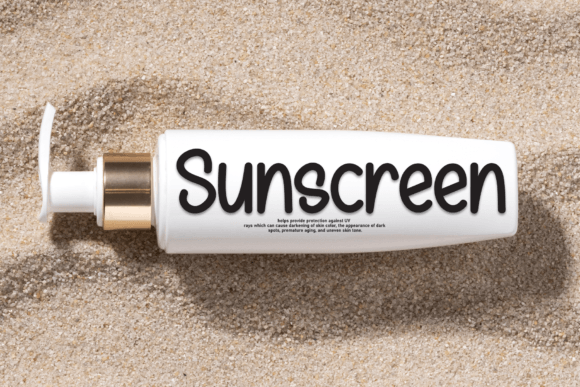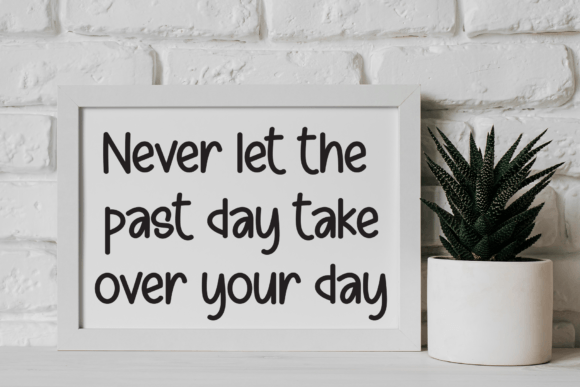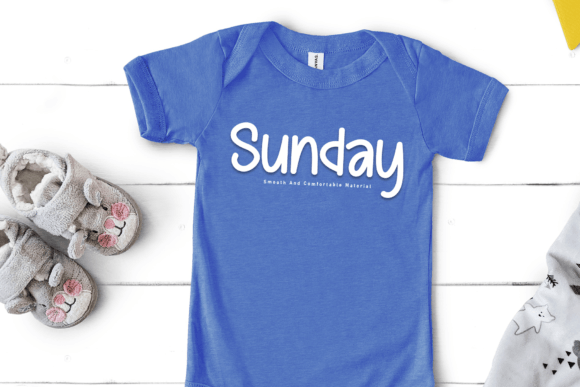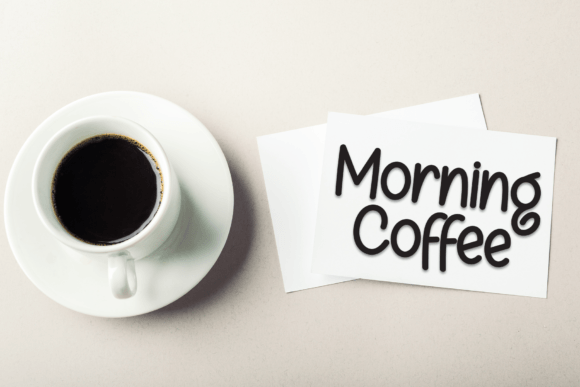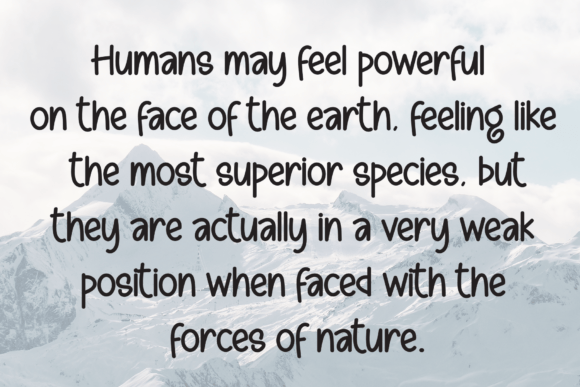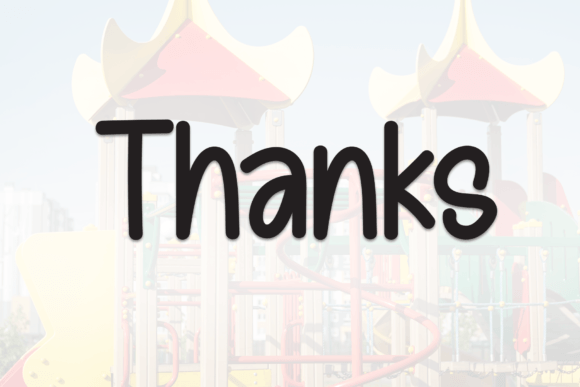
Introduction to Childern Playground Font
Remember that moment when you stumbled upon the perfect font for a creative project, and everything just clicked? It’s a feeling that’s hard to describe, but it’s a mix of excitement, relief, and a dash of pride. As a designer, you know how crucial the right font can be in elevating your work and making it truly special. That’s where the Childern Playground Font comes in – a stunning, high-quality font that’s perfect for adding a touch of whimsy and fun to your designs.
With its unique, playful style, the Childern Playground Font is an absolute gem for designers. Whether you’re working on a children’s book, a wedding invitation, or a social media campaign, this font is sure to bring a smile to your face and a touch of magic to your design. And the best part? It’s available for free download, making it an invaluable resource for any designer looking to add some creativity to their projects.
Key Features of Childern Playground Font
- Unique, hand-drawn design suitable for creative projects and children’s themes
- Designed to be highly customizable, with scalable vector graphics (SVG) for crisp, high-resolution output
- Perfect for designers and artists looking for a distinctive, whimsical font to elevate their creative project
Honest Review: Childern Playground Font
I recently stumbled upon the Childern Playground Font and I must say it’s been a great addition to my design resources. I love how it can instantly add a playful touch to any creative project.
What works well: ✨ The font is incredibly versatile and can be used for a wide range of applications, from children’s books to advertisements and even personal branding. It’s also free to download, which is a major plus for designers like me who are always on the lookout for high-quality design resources.
The transparent background feature is also a nice touch, allowing me to easily overlay the font on different backgrounds and create visually appealing designs.
However, there are a few limitations: ⚠️ The font could benefit from more character sets, especially for languages other than English. Additionally, the font might not be suitable for projects that require a more formal tone.
Overall, I’m impressed with the Childern Playground Font and would highly recommend it to designers looking for a fun and creative font to add to their toolkit.
- High quality design resource
- Transparent background feature
- Playful and versatile
The Childern Playground Font is a free design resource that can add a touch of creativity to any project. With its high quality and transparent background, this font is perfect for designers looking for a unique and eye-catching element.
Tips for Getting the Most Out of Childern Playground Font
To get the most out of the Childern Playground Font, use it in creative projects where a unique and eye-catching element is needed. This font is perfect for children’s party invitations, educational materials, and other design projects that require a playful and fun touch.
Common Use Cases for Childern Playground Font
The Childern Playground Font is commonly used in design projects that require a playful and fun touch, such as:
- Children’s party invitations
- Educational materials
- Children’s book covers
- Toy packaging design